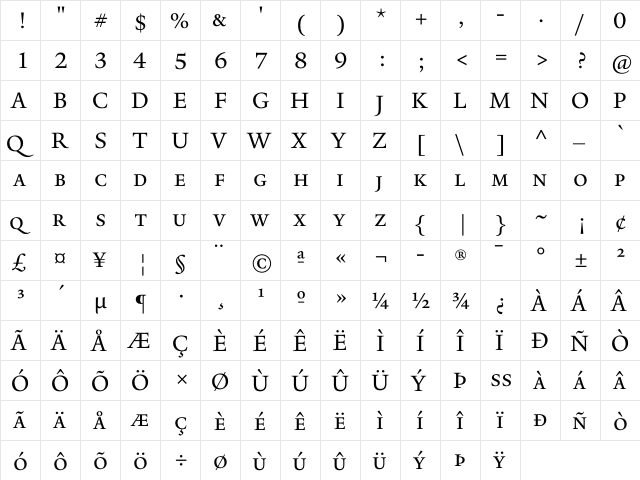
YaleCFF Regular Small Caps
Design Context for YaleCFF Typeface
YaleCFF takes a measured approach to typography — its balanced proportions and neutral character make it a reliable workhorse for both digital and print work.